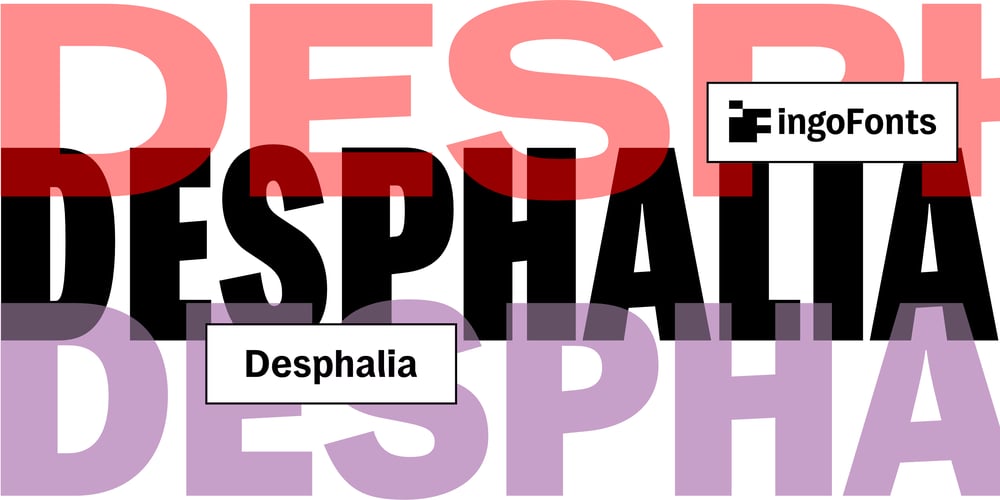
Desphalia Pro Font Family was designed by Ingo Zimmermann and published by Ingo. Desphalia Pro contains 30 styles and family package options. A classic “American” sans serif with a kinkDesphalia belongs to the kind of sans serif fonts that were created in the 19th century. You could also name it “American Gothic”, a sans serif in the style of fonts like Franklin Gothic, News Gothic and similar. Above all, the high x-height characterizes this typeface style, as do the identical heights of uppercase and ascenders. However, I allowed myself a few peculiarities ;-)On the one hand, there is the gently sloping horizontal middle line on letters such as H, E, F, A and e. The M also got gently slanted sides. Some of the lower-case letters have an up- or down-stroke: a d m n p u. This “kink” on the shaft also serves to better distinguish the small l from the capital I — as can be seen clearly with the term »Illinois«.In keeping with the tradition of American typefaces, Desphalia does not have a true italic. Rather, the letters of the “Italic” have the same character forms as the normal upright variant, but in oblique — and so it is not called “Italic” but “Oblique”. Style Set 01: Another American peculiarity is the capital I with dashes above and below. It is included in the Desphalia as an alternate character form. An alternative small l with the “kink” in the ascender is also included — as is a y with the “kink” in the descender. Style Set 02: The corresponding “straight” forms a d l m n p u without the break are included as alternatives in a separate style set. Small caps are uppercase letters that are optically the same size as lowercase letters. They offer a very classy way of emphasis. Desphalia is available in the widths Condensed, Normal and Expanded, the weights include Thin, Light, Book, Bold, Black. Using the variable font, all intermediate levels can be freely selected. The figures are optionally available as tabular figures, proportional lining figures or old style figures.